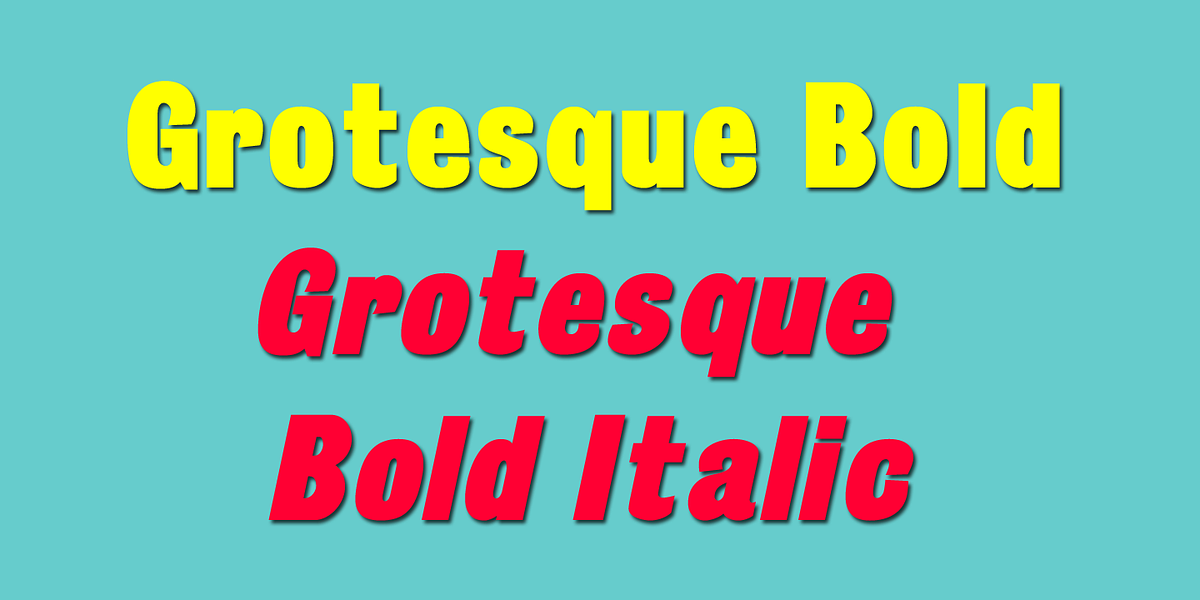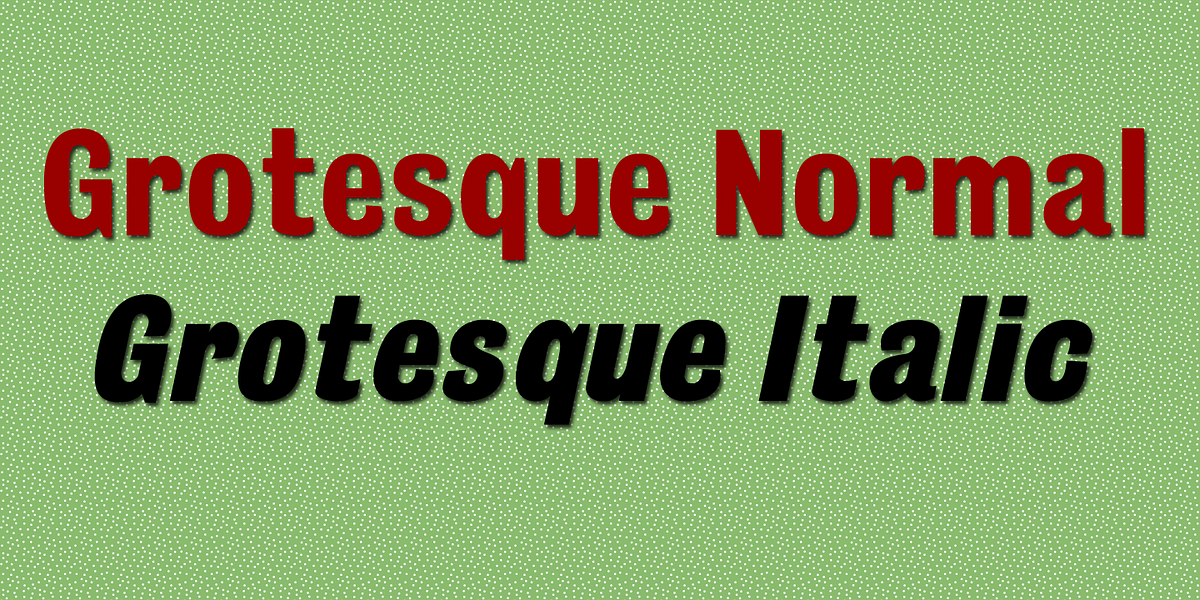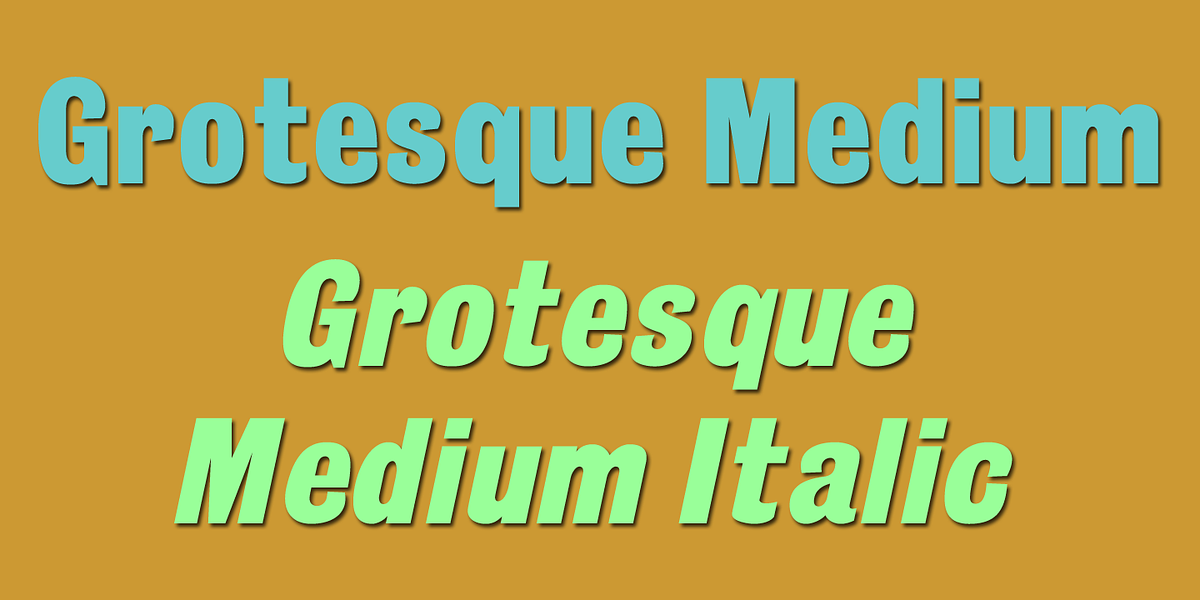
Grotesque
Grotesque is a sans-serif font inspired by popular typefaces from the 19th century. Its bold weight and high contrast make it suitable for both display purposes and body text.